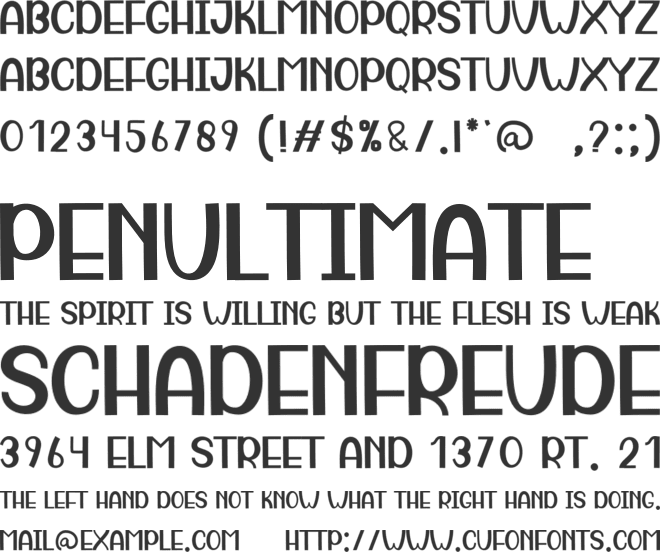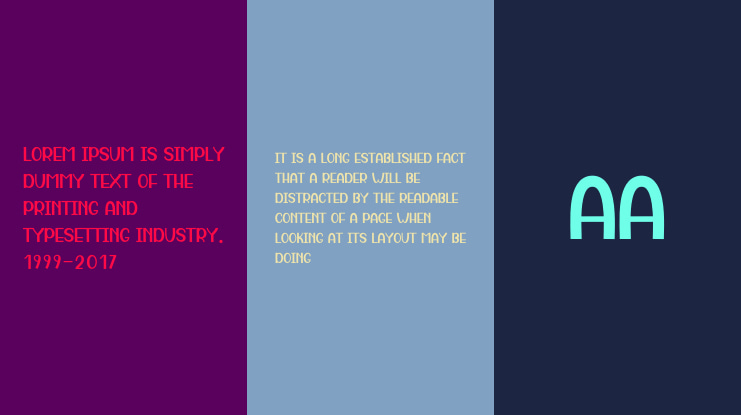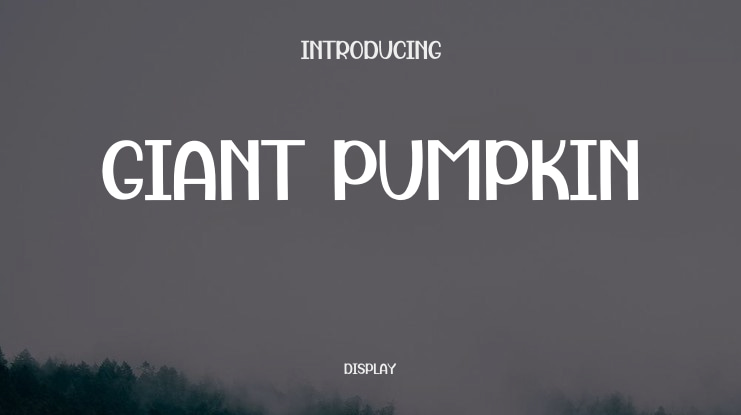
Giant Pumpkin Font
this is a sweet and friendly handwritten display font. Cute and fun, this font is ideal for writing wedding invitations, cards, or any other design that might need a playful touch!Visit the following website for commercial purchases:https://scratchones.com/or you can contact the following email if you have questions and for custom fonts, adding font glyphs, editing fonts, and others commerciallyGmail :  You